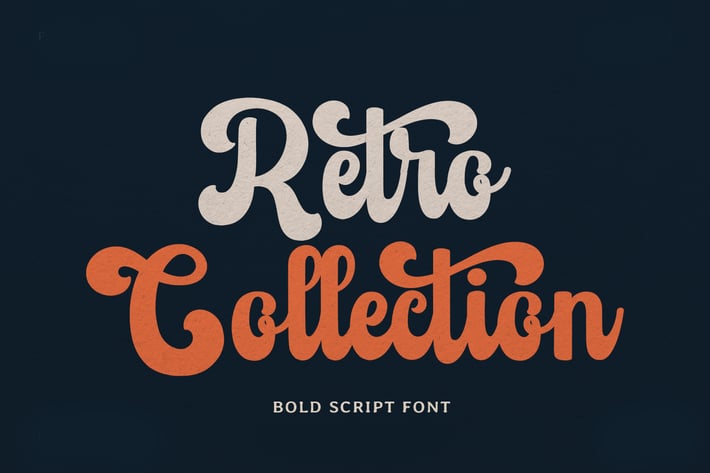
Retro Collection - Vintage Font
Retro Collection – A Blast from the Past in Every Stroke
Bring back the timeless charm of the '70s, '80s, and '90s with a handwritten script that captures the spirit of the golden eras. Retro Collection is your go-to font for crafting designs that echo vintage vibes and nostalgic flair.
Retro Collection is a script handwritten font inspired by classic retro aesthetics—perfect for vintage lovers, old-school enthusiasts, and creative designers. With its smooth curves and authentic pen-style strokes, this font channels the essence of throwback eras into every letter. Whether you're designing for a Valentine’s Day card, a wedding invitation, or a retro-themed party, this font adds a touch of timeless elegance and personality.
This font is perfectly positioned for crafters, designers, and small businesses seeking to create standout designs with a nostalgic twist. It’s ideal for use in Cricut projects, embroidery patterns, custom signage, seasonal crafts, and digital art. From birthday cards to Easter decorations, summer collections, or Thanksgiving table settings, Retro Collection blends seamlessly with every theme, making it a versatile asset for any design toolkit.